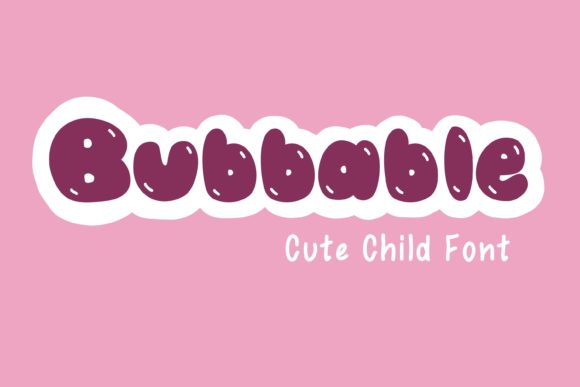
The Joy of Bubbable Font: A Designer’s New Best Friend
I still remember the time I was working on a children’s activity book project, and I just couldn’t find the right font to match the playful vibe of the illustrations. The client wanted something that would appeal to kids and make the content feel fun and approachable. That’s when I stumbled upon Bubbable Font, and it instantly became my go-to choice. In this article, I’ll share my experience with Bubbable, its features, and how to make the most of it in your designs.
An Honest Review of Bubbable Font
What I Love About Bubbable ✨
- ✅ Playful and Authentic: Bubbable embodies the perfect blend of playfulness and authenticity, making it ideal for children’s activities, school projects, or any design that needs a fun twist.
- ✅ Ease of Use: The font is incredibly easy to read and works well in various sizes, from large headings to smaller body text.
- ✅ Versatility: Bubbable comes with a range of OpenType features, glyphs, and stylistic alternates, giving you plenty of creative options.
- ✅ Cute and Fun: The bubbly design of the font adds a delightful touch to any project, making it perfect for designs aimed at kids or a younger audience.
- ⚠️ Limited Use in Formal Contexts: While Bubbable is amazing for playful designs, it might not be the best choice for formal or professional projects that require a more serious tone.
- ⚠️ Legibility at Small Sizes: While generally easy to read, Bubbable might become a bit tricky to read at very small sizes (below 10pt). It’s best used at larger sizes for optimal impact.
The Backstory of Bubbable Font
Bubbable Font was designed with the intention of capturing the essence of childhood playfulness. The designer aimed to create a font that would not only be fun but also highly legible and versatile. Inspired by the joy of simple, bubbly shapes and the authenticity of handwritten text, Bubbable has become a favorite among designers looking for that extra special touch.